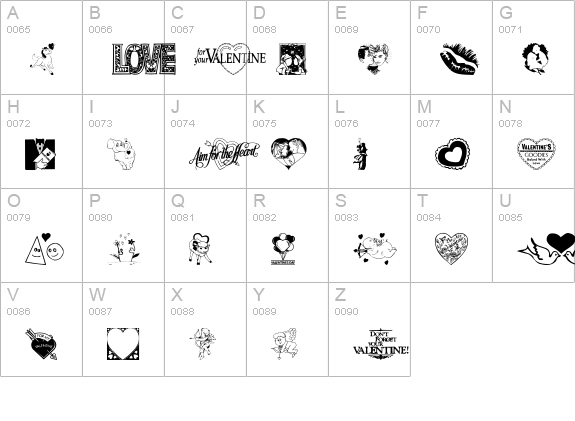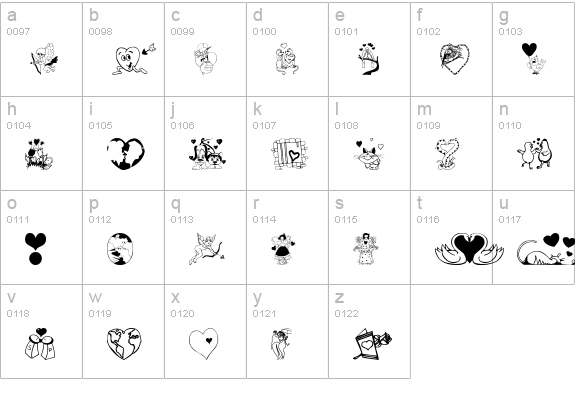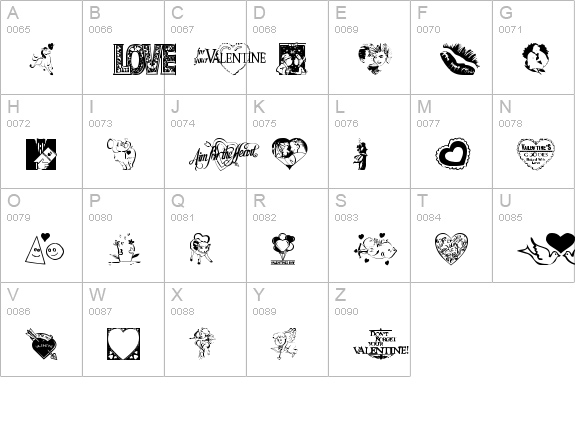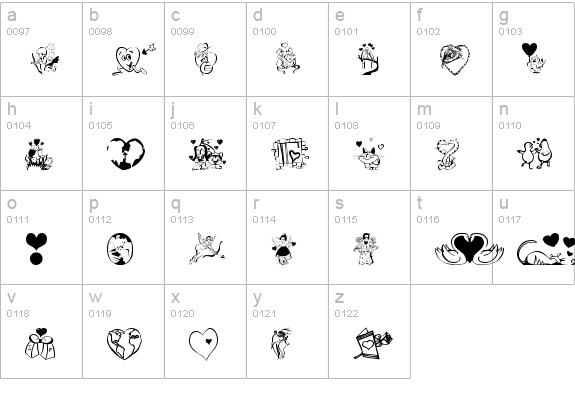
LovePoision Font Details
LovePoision font is a whimsical and enchanting typeface that captures the essence of romance and mystery. With its elegant curves and delicate flourishes, this font is perfect for adding a touch of magic to your designs. Whether you're creating wedding invitations, love letters, or romantic quotes, LovePoision font will bring a sense of charm and allure to your projects. The best part is, LovePoision font is available for FREE download at FontsMarket.com. Now you can easily add a dash of romance to your creations without breaking the bank. Don't miss out on this beautiful and enchanting font – download LovePoision today and let your creativity sparkle with love and passion.